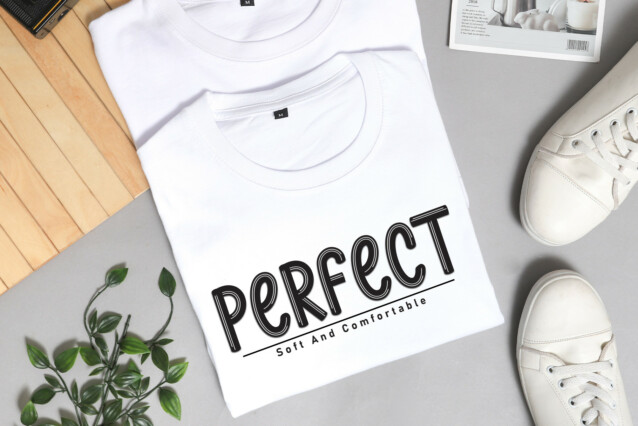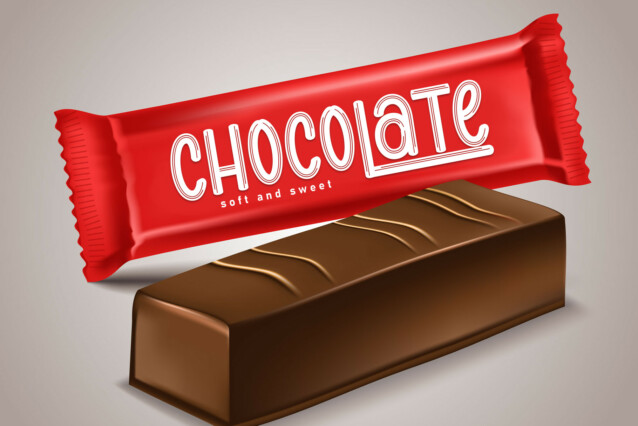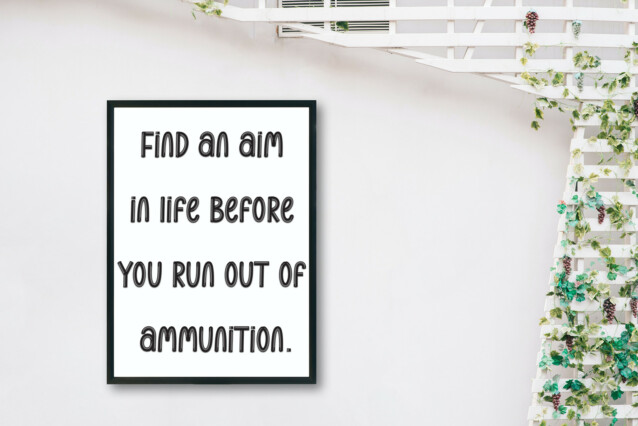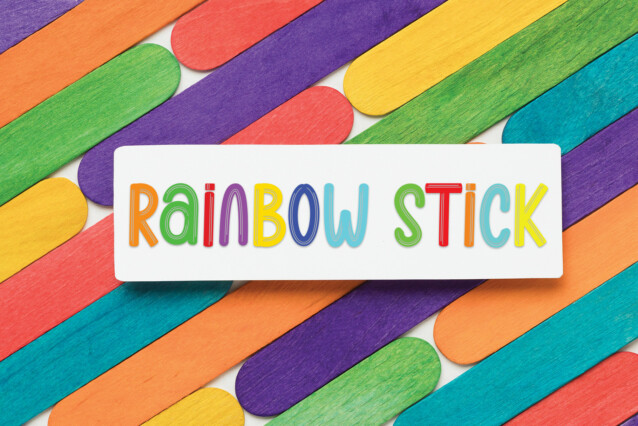
The Flights Display Font
The Flights Display Font is a lovely and timeless handwritten font. It is the best choice for creating eye catching logos, branding and quotes. Every letter has a unique and beautiful touch, which will make your design come alive!